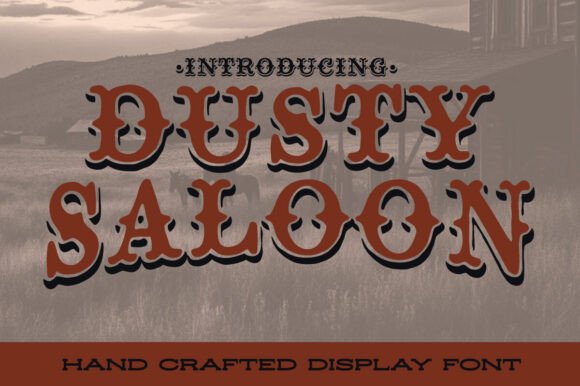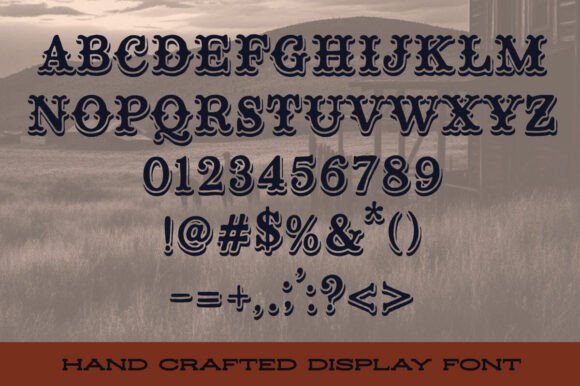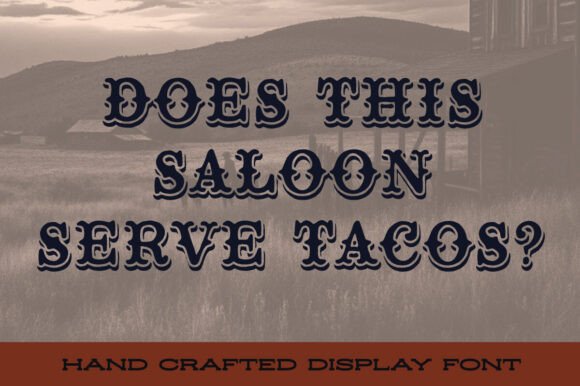
Dusty Saloon Font
About the Dusty Saloon Font
The Dusty Saloon Font is here to transform your projects with its distinctive character and style. Dusty Saloon is a bold, old-fashioned Western font that brings the spirit of a classic frontier saloon to life. Featuring strong, vintage letterforms with a built-in drop shadow, this typeface exudes the rugged charm of the Old West. Perfect for saloon signs, wanted posters, whiskey labels, or any design that needs a touch of cowboy flair, Dusty Saloon delivers an authentic, time-worn aesthetic with just the right amount of grit.
Its strong, high-contrast forms make Dusty Saloon ideal for headlines, short impactful phrases, and branding elements where a bold, vintage statement is desired. It excels in posters, signage, and packaging for products emphasizing a rugged, Americana aesthetic—think whiskey, leather goods, or Western-themed apparel. However, its low x-height and heavy weight make it unsuitable for body text or extended reading. Small sizes will lose legibility.
For effective pairings, consider pairing Dusty Saloon with a clean, geometric sans-serif like Futura for a modern contrast, or a classic serif like Garamond for a more traditional feel. A handwritten script font could add a touch of personality to smaller design elements within a larger Dusty Saloon-based layout, providing visual interest without overwhelming the design.
Dusty Saloon’s core personality is bold and rugged, conveying a sense of authenticity and adventure. It’s best suited for brands that want to project strength, heritage, and a touch of rebellious spirit.
Dusty Saloon Font Usage Examples
Dusty Saloon Font Example